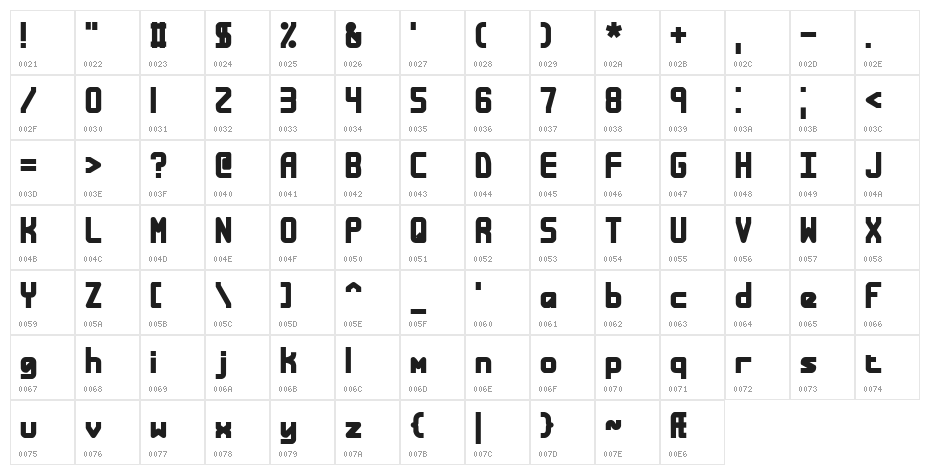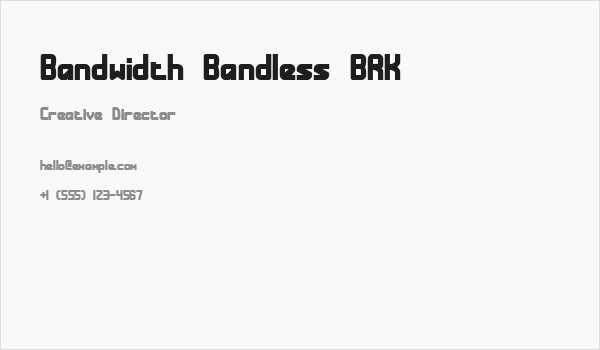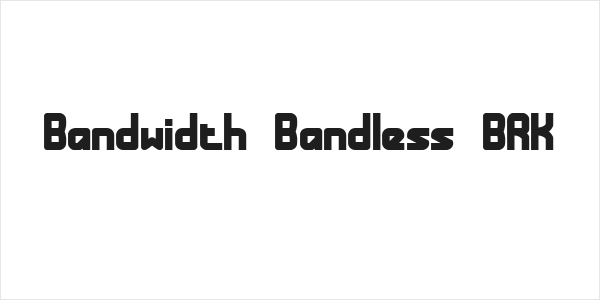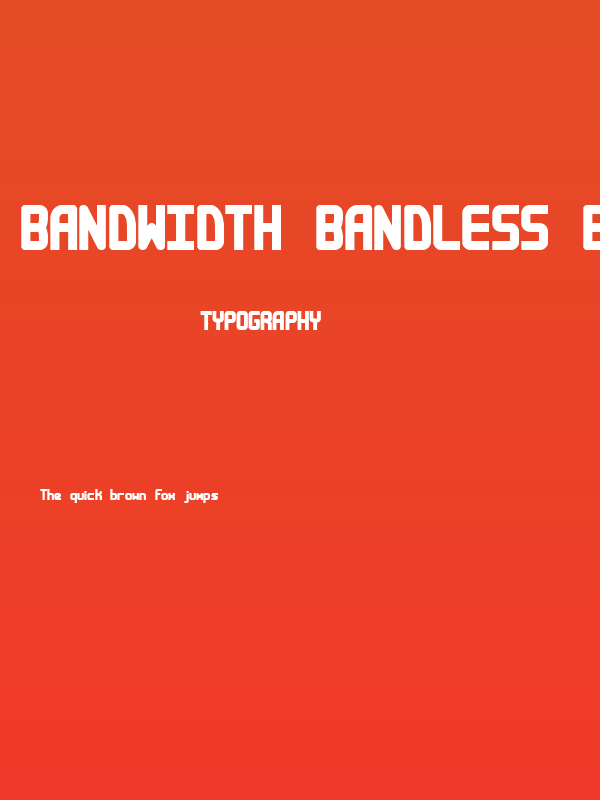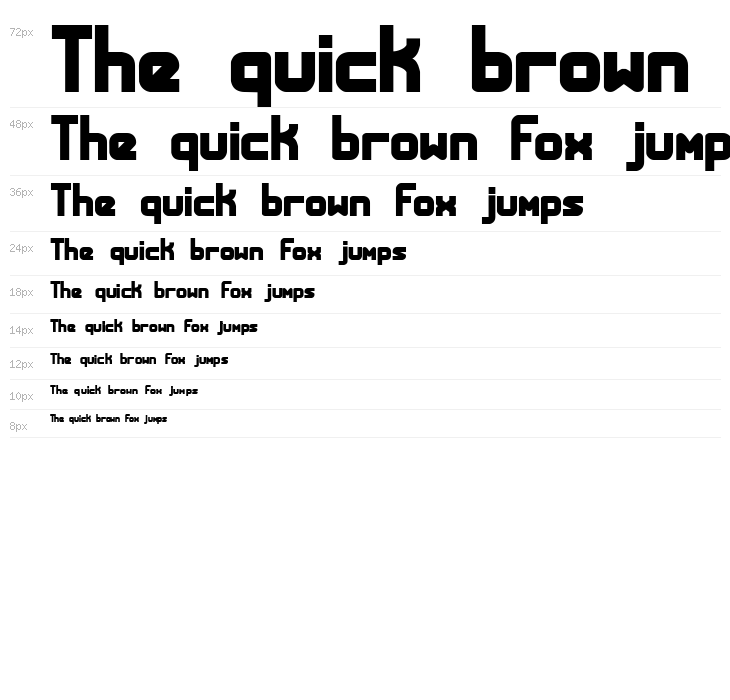
Bandwidth Bandless BRK Font
Bandwidth Bandless BRK Description
This font features a bold, geometric design with a strong presence. The characters are constructed with thick, uniform strokes that create a sense of solidity and impact. The angular shapes and straight lines give it a modern and industrial feel, making it suitable for attention-grabbing headlines and titles. The uppercase and lowercase letters maintain a consistent style, while the numerals and special characters complement the overall aesthetic. Its boldness and clarity make it highly legible, even at smaller sizes.
| Proposed Projects | Ideal for branding, posters, signage, and any project requiring a strong visual impact. |